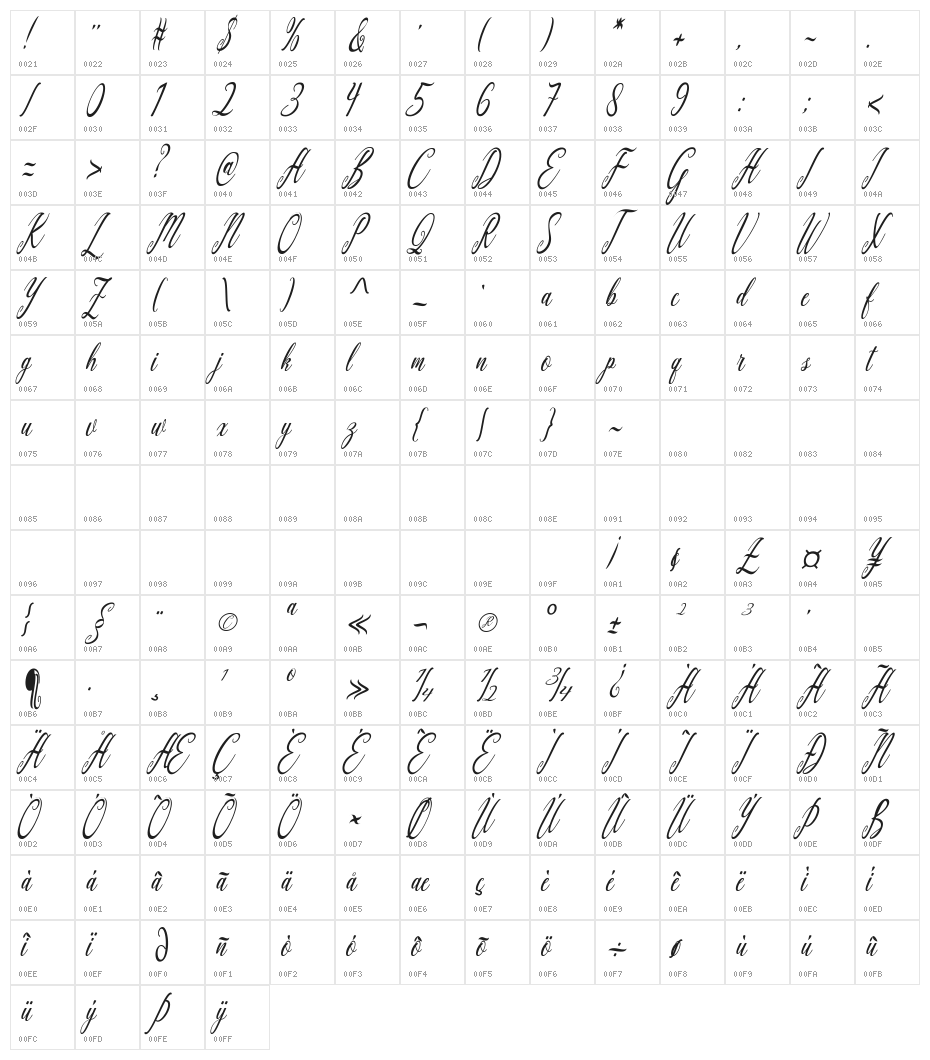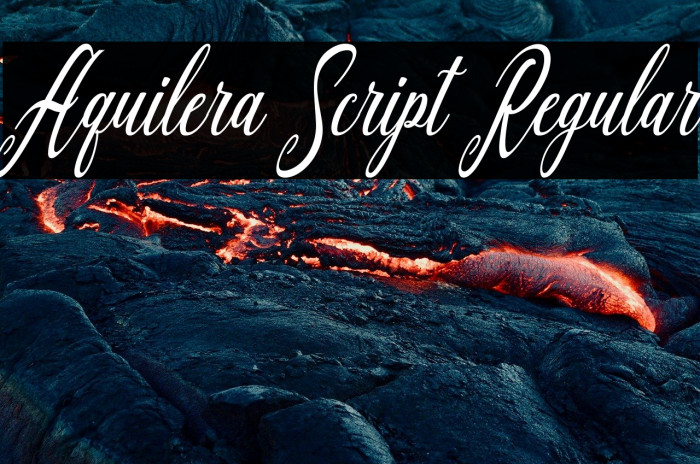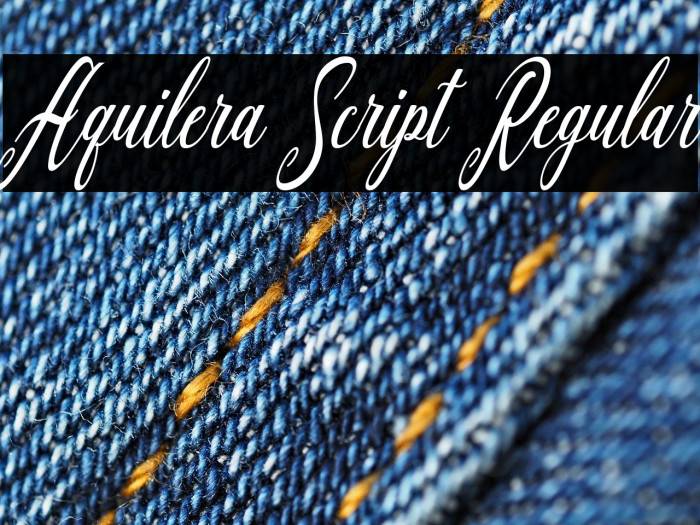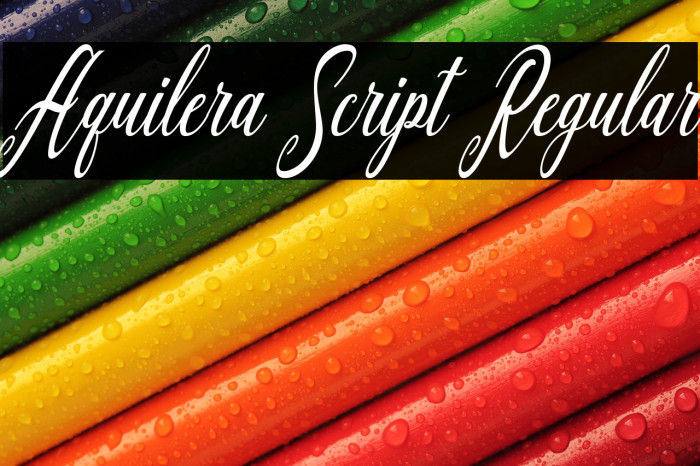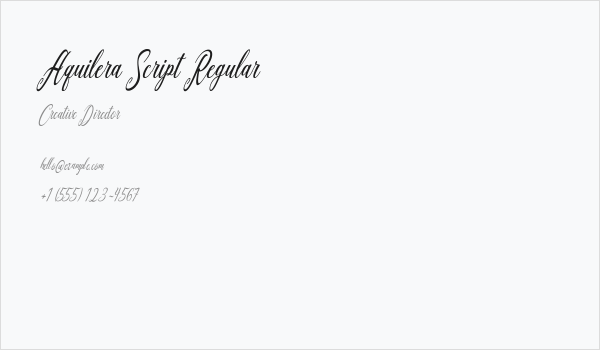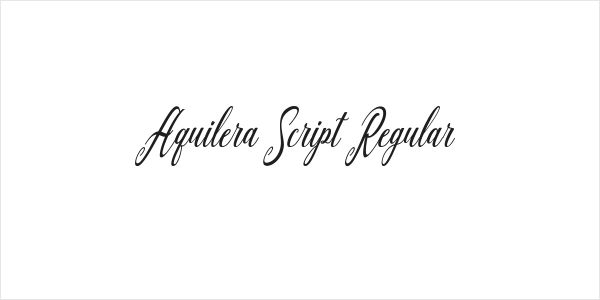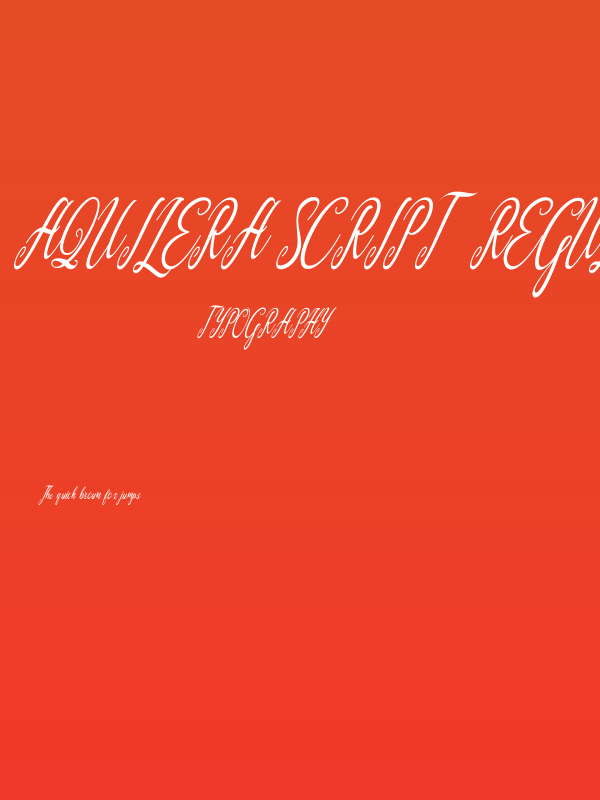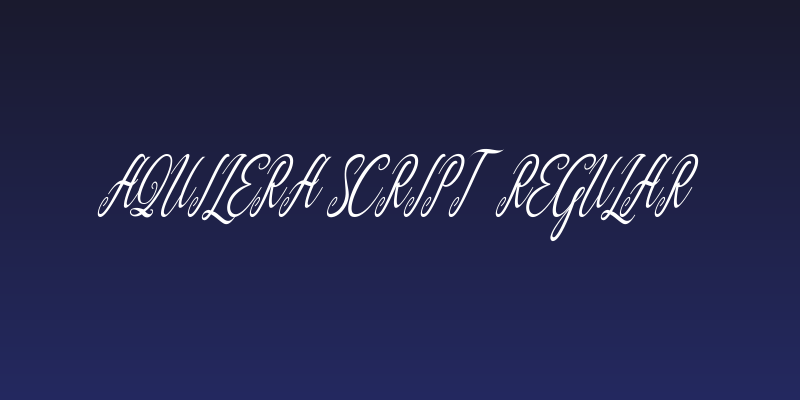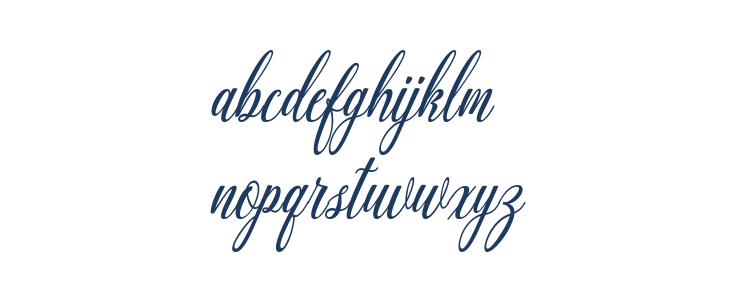
Aquilera Script Regular Font
Aquilera Script Regular Description
This elegant script font features flowing, cursive letters with a classic and sophisticated style. The uppercase letters are adorned with intricate swashes and loops, adding a touch of flair and elegance. The lowercase letters maintain a smooth, connected flow, enhancing the script's readability and charm. Numbers and special characters are designed with the same graceful curves, ensuring a cohesive appearance across all text. This font is perfect for projects that require a touch of class and sophistication, such as wedding invitations, formal event programs, or luxury branding.
| Proposed Projects | Ideal for wedding invitations, formal event programs, luxury branding, and elegant stationery. |